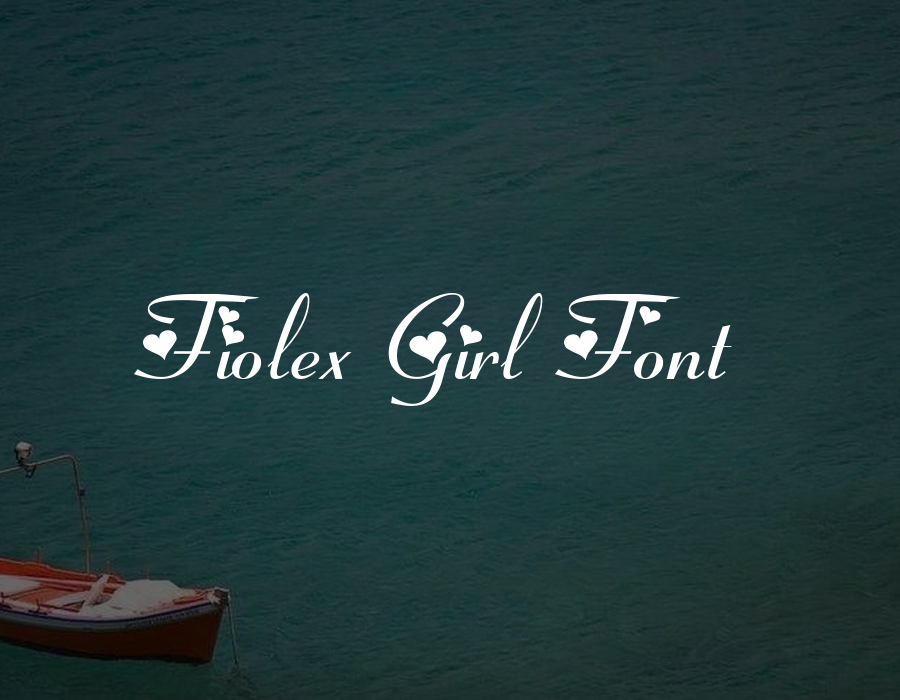
About Fiolex Girls Font
Fiolex Girls is a charming and informal script font designed to mimic relaxed, friendly handwriting with a distinctly feminine touch. Its letterforms are slightly rounded and irregular, with playful bounce and natural variations in stroke weight that create a casual, approachable feel. This font is ideal for projects targeting a youthful or female audience, such as blog titles, social media graphics, invitation cards, DIY crafts, and product labels for beauty or lifestyle brands. It adds a personal, handcrafted warmth to any design that aims to feel cute, cheerful, and relatable.